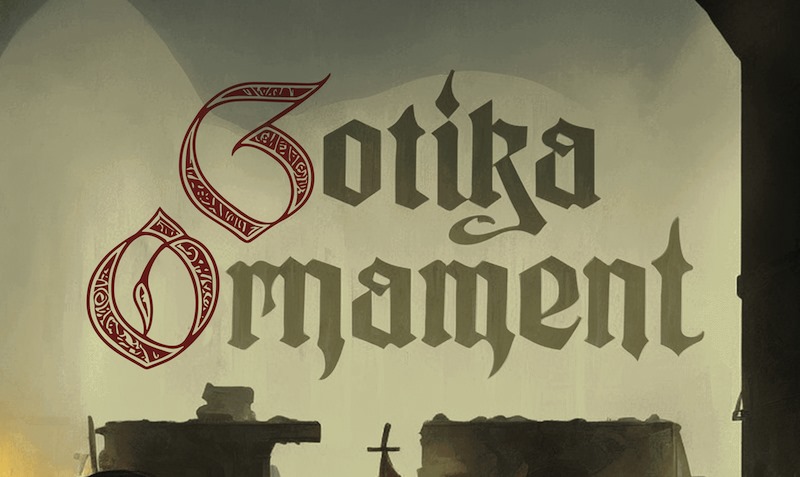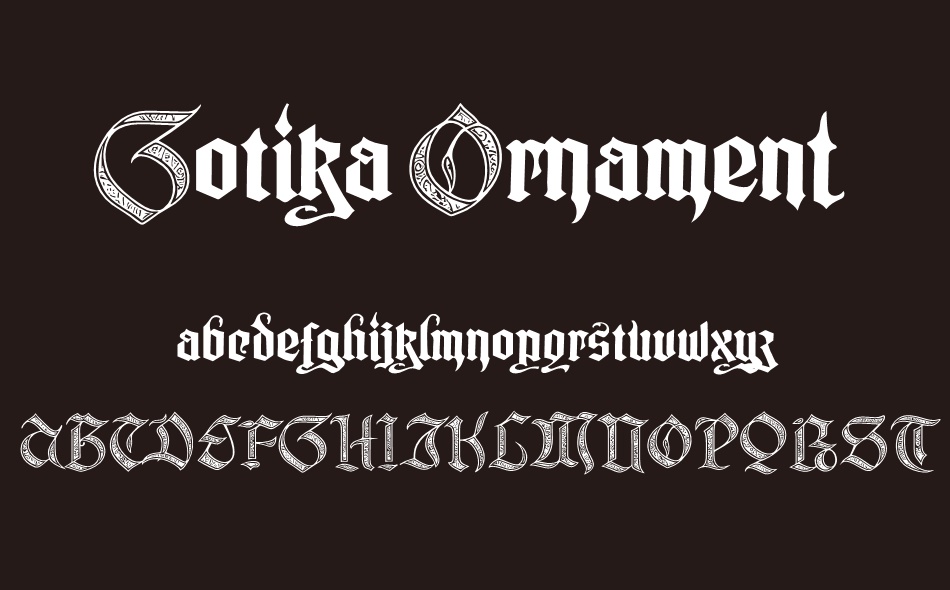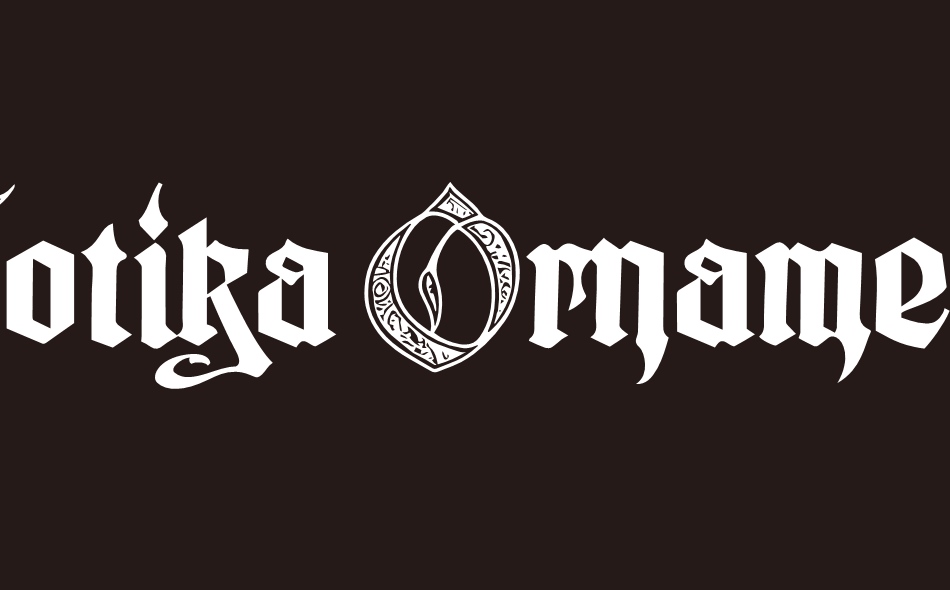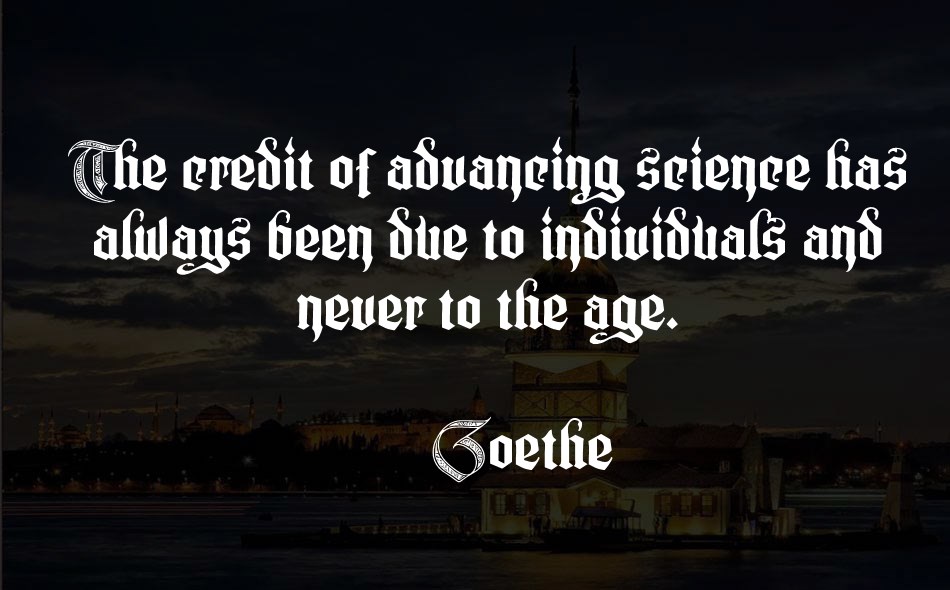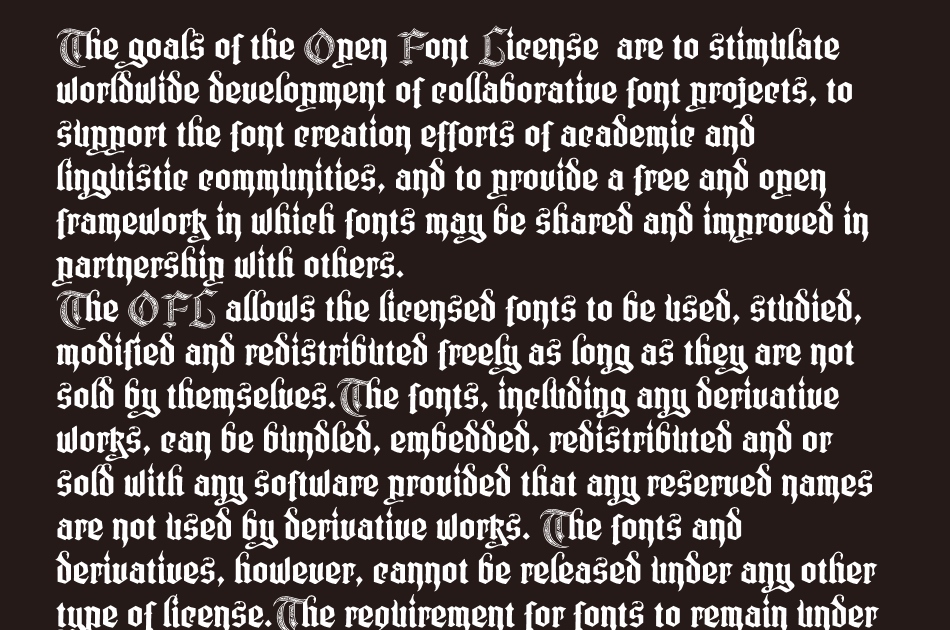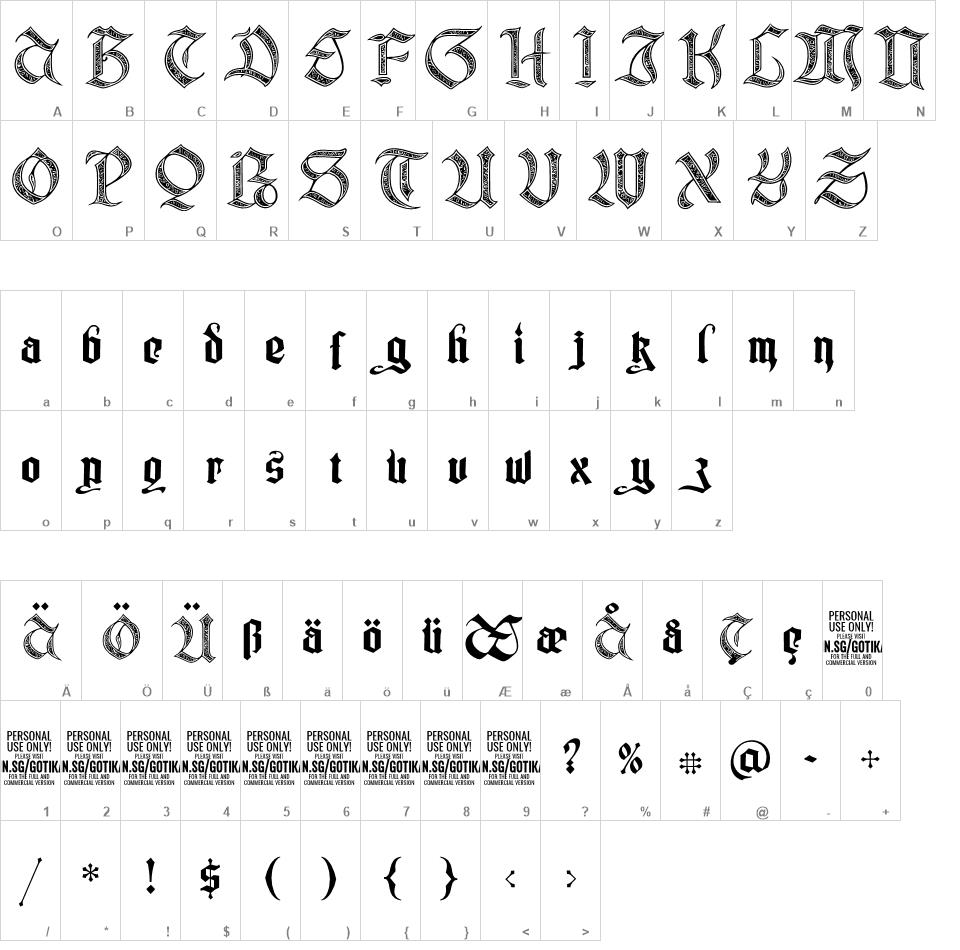
Gotika Ornament font
Gotika Ornament is a decorative font by Mans Greback that combines the beauty of medieval design with modern flair. Inspired by the intricate floral patterns and designs of the Middle Ages, this typeface is perfect for historic projects.
Gotika Ornament is a decorative font by Mans Greback that combines the beauty of medieval design with modern flair. Inspired by the intricate floral patterns and designs of the Middle Ages, this typeface is perfect for projects that require a touch of elegance and a hint of romanticism, such as tattoo designs, rock posters, or even branding for a queen's boutique.
Mans Greback studied medieval manuscripts containing unique ornamental designs, which inspired the creation of Gotika Ornament. He handcrafted the calligraphy and used an AI model to refine and complete the typeface, resulting in a sophisticated and artistically stunning font. Gotika Ornament captures the essence of the historic era while infusing it with contemporary sensibilities, making it a versatile choice for various creative projects.
The font is built with advanced OpenType functionality and has a guaranteed top-notch quality, containing stylistic and contextual alternates, ligatures, and more features; all to give you full control and customizability. It has extensive lingual support, covering all Latin-based languages, from Northern Europe to South Africa, from America to South-East Asia. It contains all characters and symbols you'll ever need, including all punctuation and numbers.
Mans Greback is a Swedish typeface designer, dedicated to crafting diverse and versatile fonts. With a passion for design and typography, he has developed a broad range of fonts that are utilized by designers around the world.